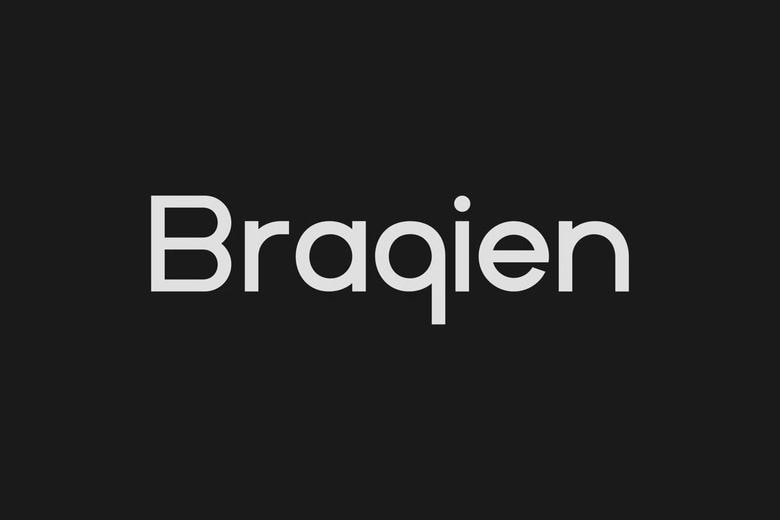
Braqien Font
Braqien Font – Minimal Geometric Font is a bold and authentic display font. The font is suitable for any branding project like logo, esport, and many more. outstanding in a wide range of contexts.
Braqien Sans Serif Font